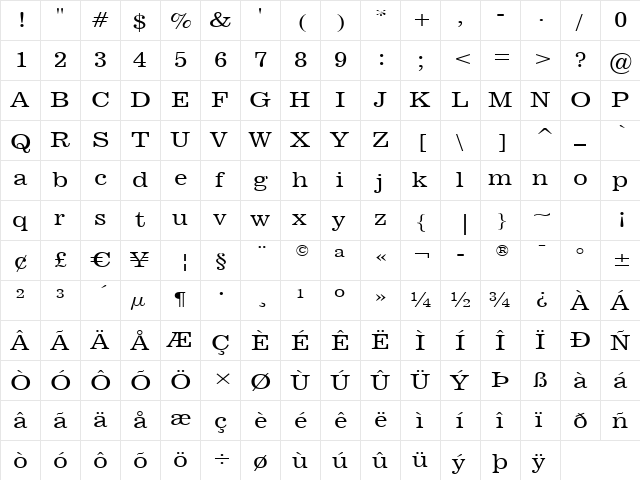
Berlidin Regular
Design Context for Berlidin Typeface
Berlidin is a composed and adaptable typeface that performs quietly and consistently across a wide range of design contexts.